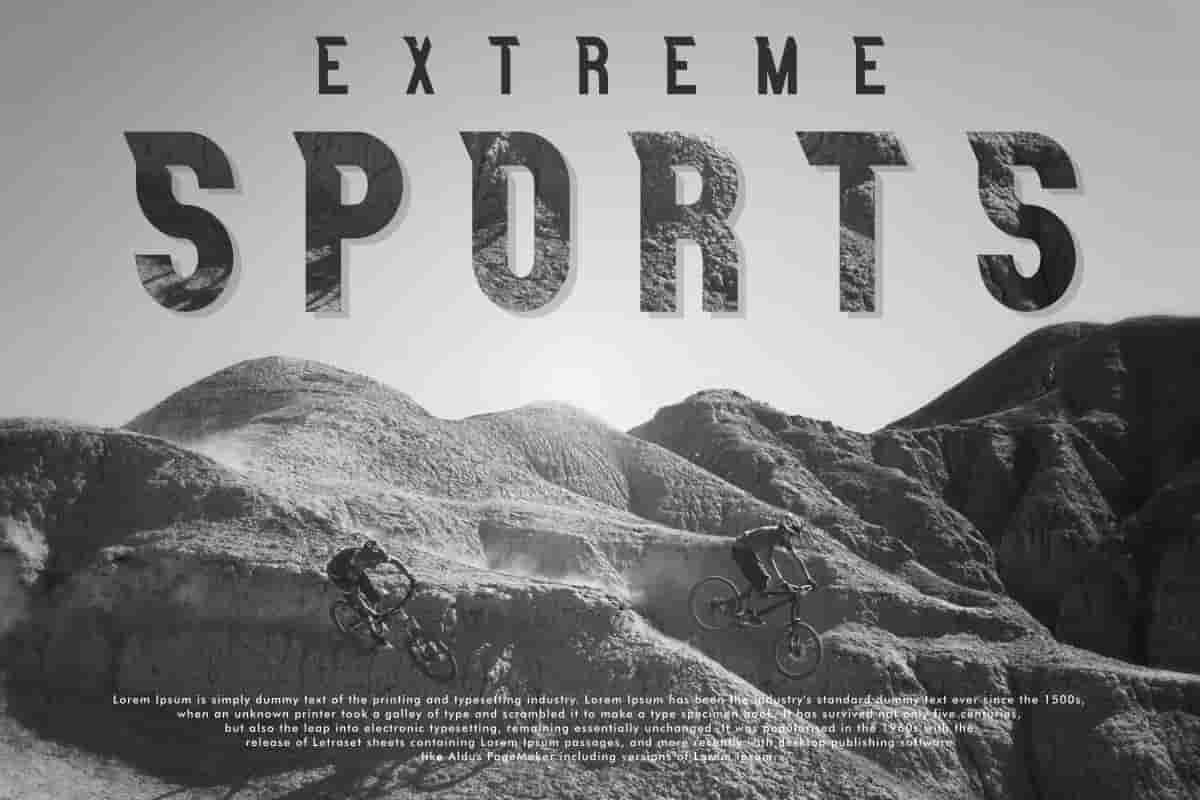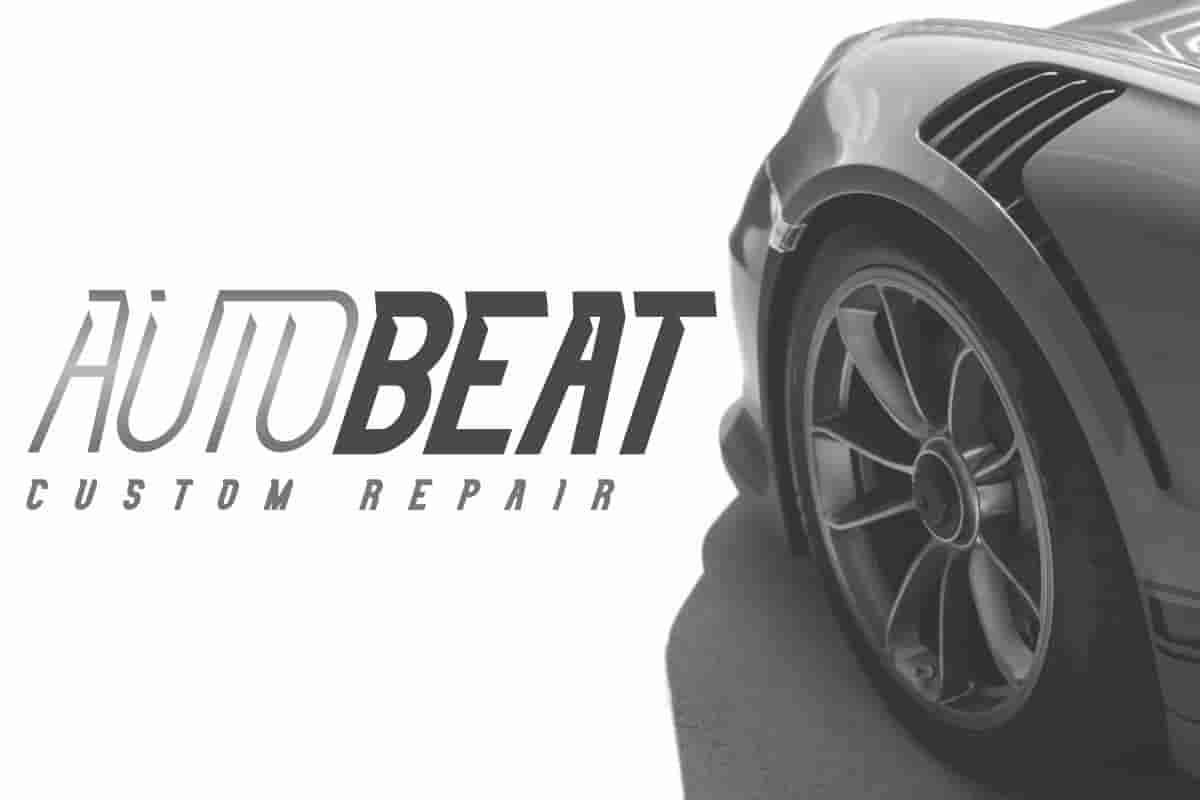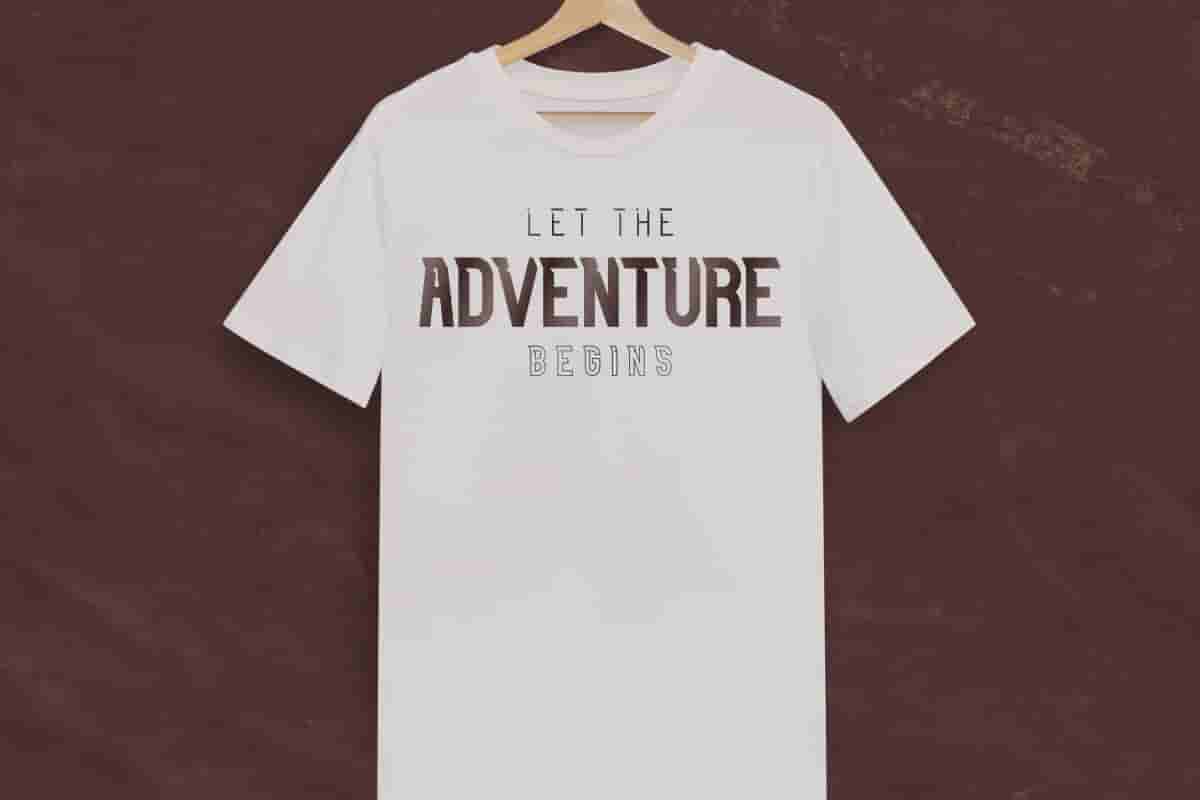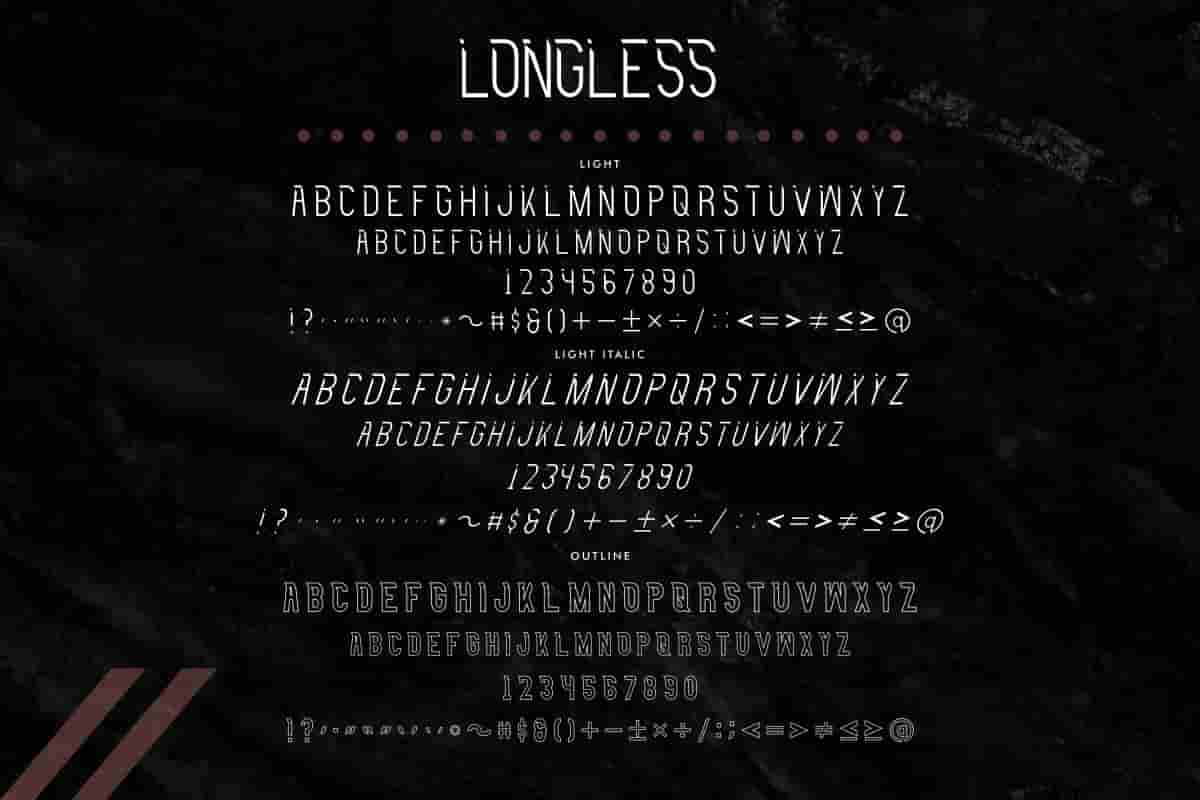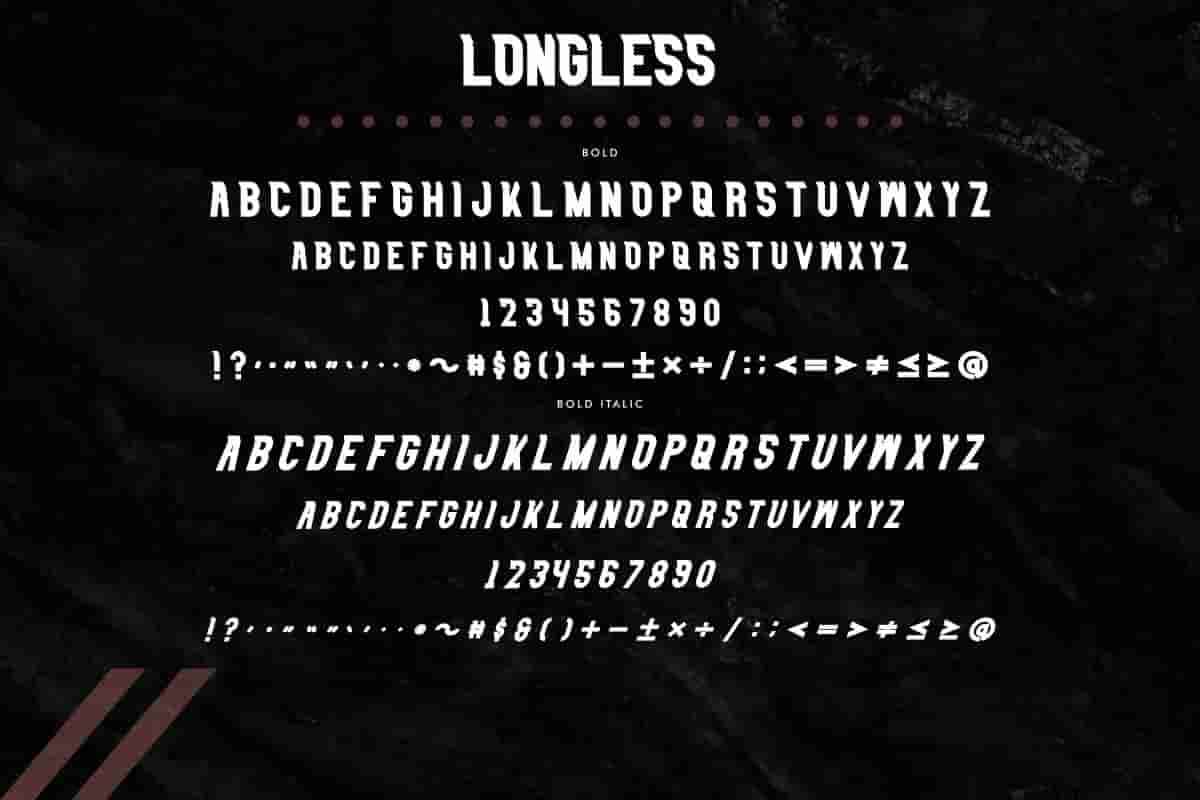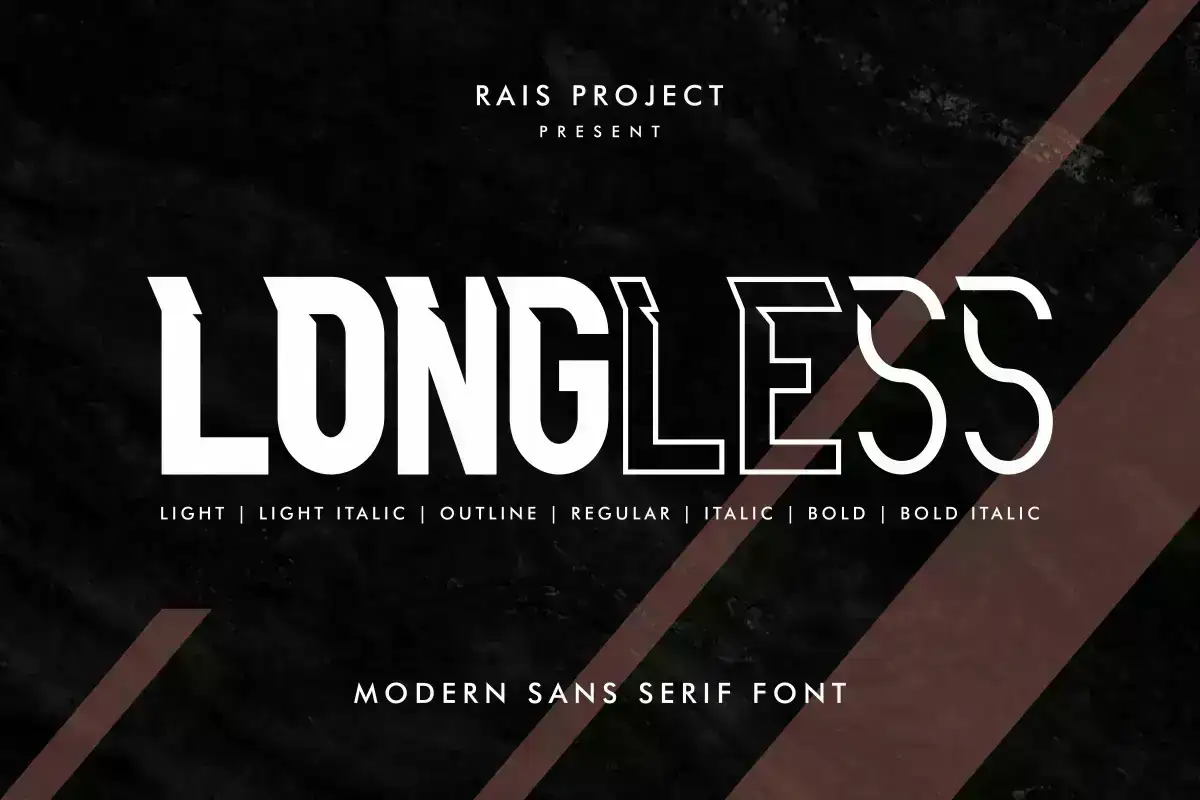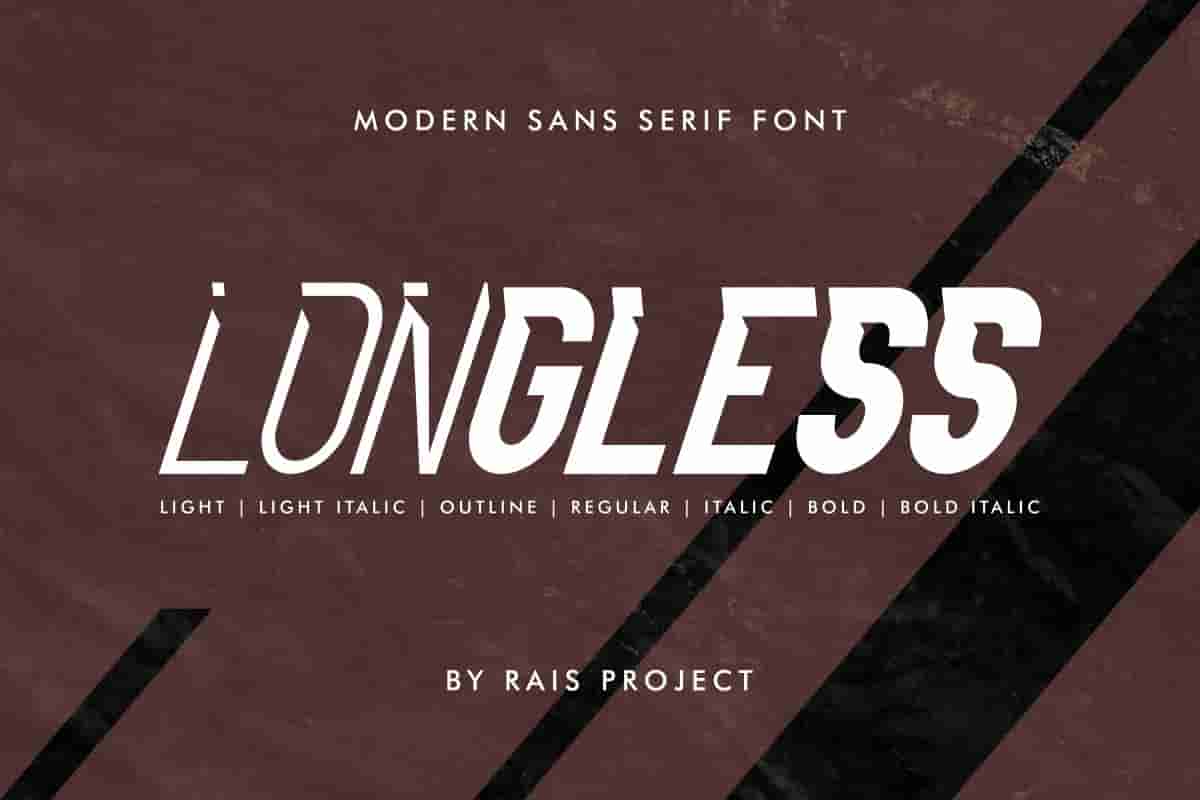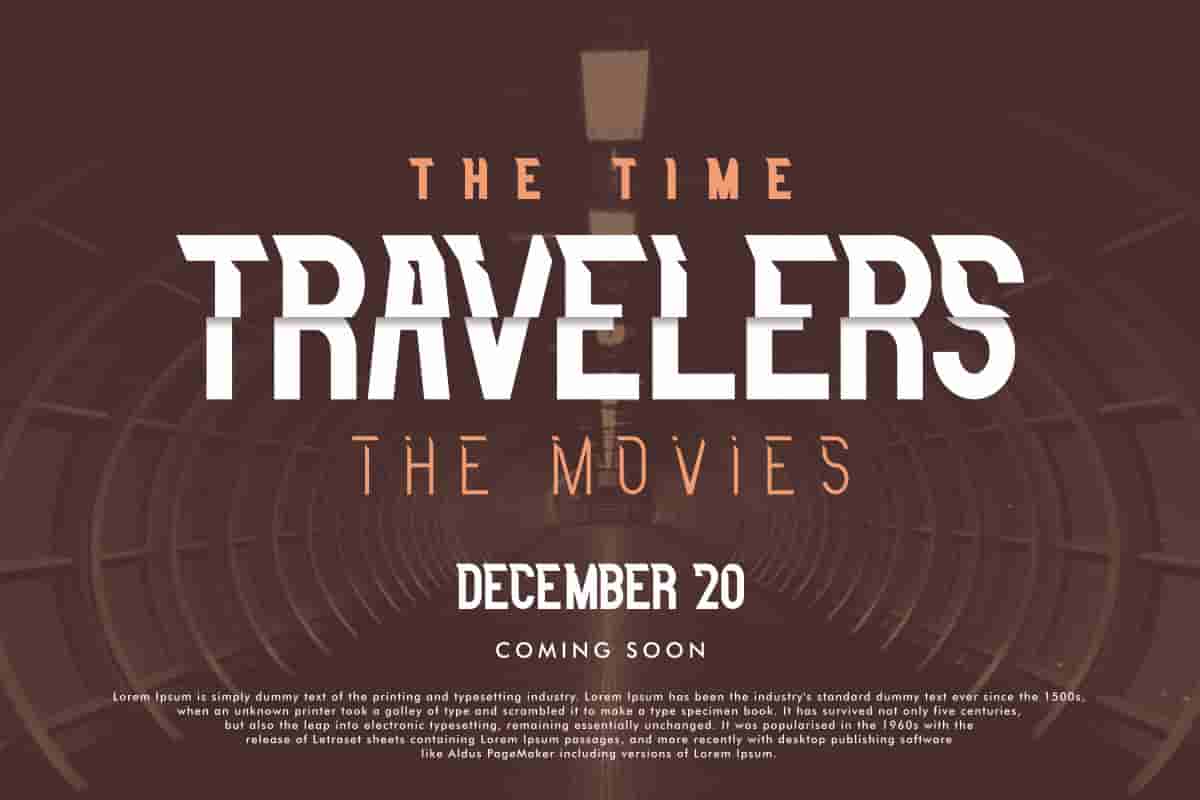
Longless Font
Longless Font is a modern futuristic clean Sans Serif display font, designed by Rais Project. This is a display font that will be awesome for sport, technology, startup, media, movie, song etc.
Longless Font is a modern futuristic clean Sans Serif display font, designed by Rais Project. Longless Font is our third font on the market. It has minimalistic style. You can see the demo font below. You can also input any word you want so you can see what it will look like :
Longless Font is remotely made in Bandung and Garut, two beautiful cities in Indonesia. The font was handcrafted for any your special projects including : headlines, promotion, events, branding, advertising, magazine, signage, invitation, stationery, social media posts, label, or and any projects that need unique strong style. The theme/industries of this font is Technology, Automotive, Game, Magazine, Music, Sport etc
Longless Font includes full set of gorgeous uppercase and lowercase letters, numerals, a large range of punctuation and ligatures. All lowercase letters include beginning and ending swashes, giving a strong unique style. It has SEVEN different styles : Reguler, Italic, Line, Light, Light italic, Bold and Bold italic